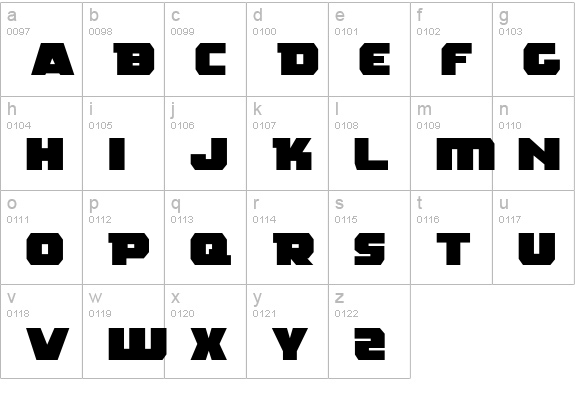
Rogue Hero Expanded is a distinctive, extended-width variant in the Rogue typeface family \xE2\x80\x94 well suited to design and typography projects.
Introducing Rogue Hero Expanded font, a versatile and dynamic typeface that exudes boldness and creativity. This font is perfect for making a statement with your design projects, whether it's for branding, posters, or social media graphics. With its strong and edgy look, Rogue Hero Expanded font is sure to capture attention and leave a lasting impression. What's more, this amazing font is available for free download at FontsMarket.com! That's right, you can get your hands on this top-quality typeface without spending a dime. Don't miss out on the opportunity to enhance your designs with Rogue Hero Expanded font today. Download it now and let your creativity soar!